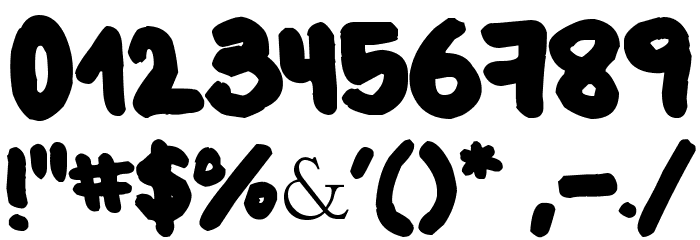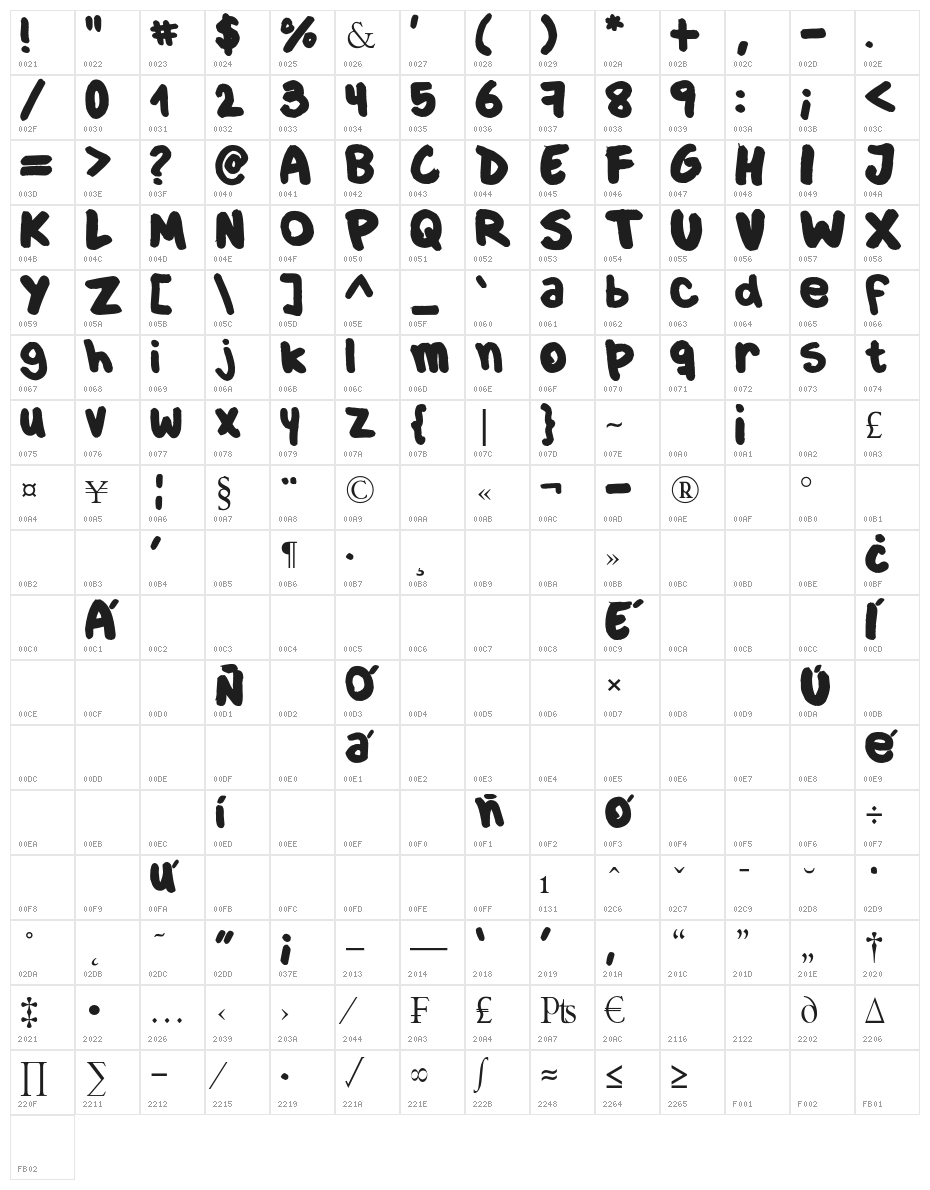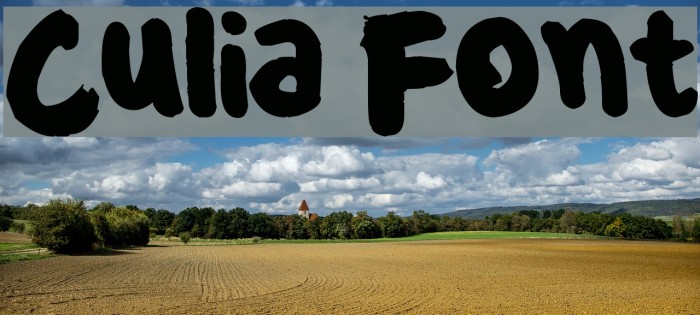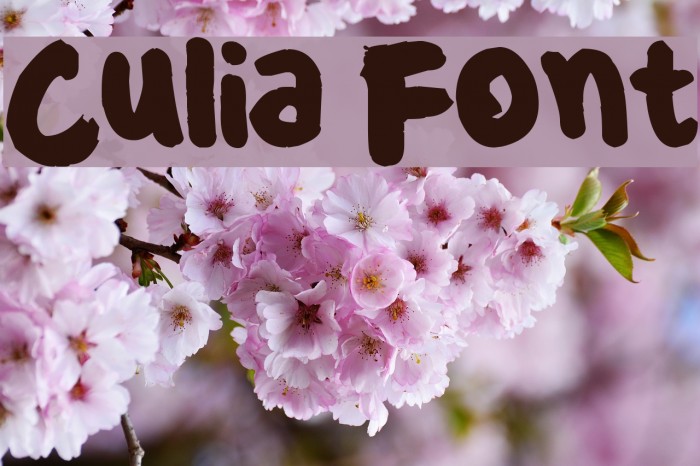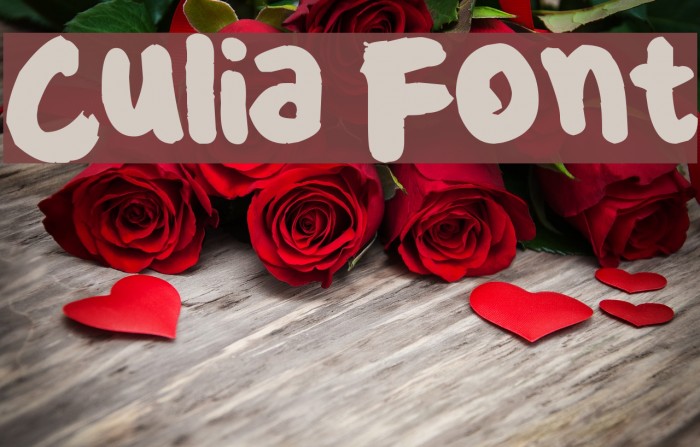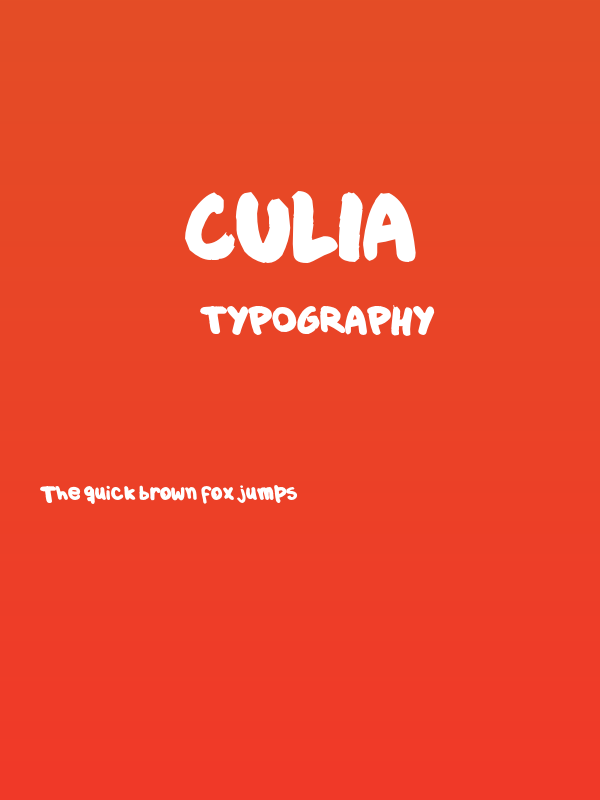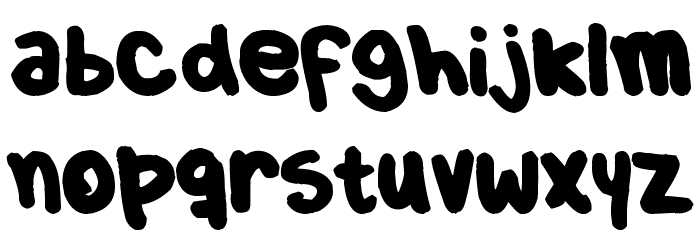
Culia Font
Culia Description
This font features a bold, playful style with a handwritten appearance. The characters are rounded and slightly irregular, giving it a casual and friendly feel. The uppercase and lowercase letters maintain a consistent thickness, contributing to its bold look. The numbers and special characters follow the same playful design, making it suitable for creative projects. The overall style is informal and energetic, perfect for capturing attention in a fun way.
| Overall Style | Playful, Casual |
| Proposed Projects | Ideal for children's books, playful branding, posters, and social media graphics. |